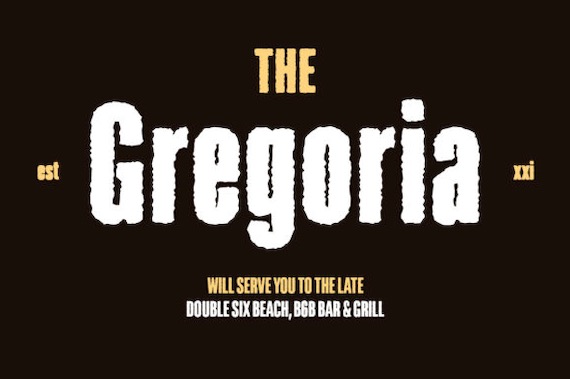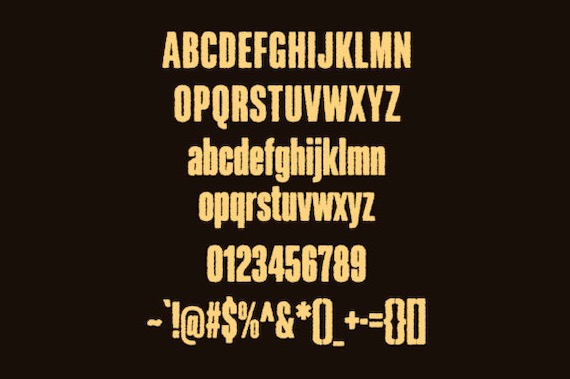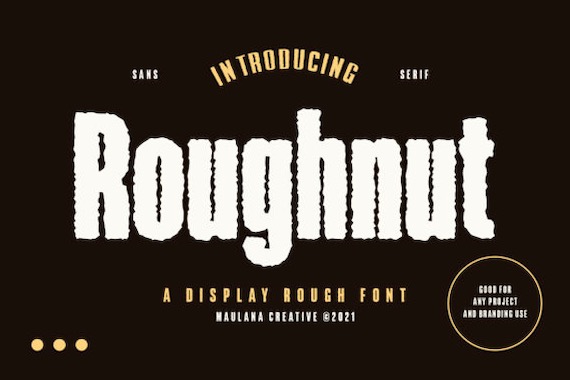
Roughnut Font was created and shared by Maulana Creative. This font has many unique styles with every different style of strokes. It features cheerful and funny letters and you can use it for many children’s works.
Roughnut Display Font